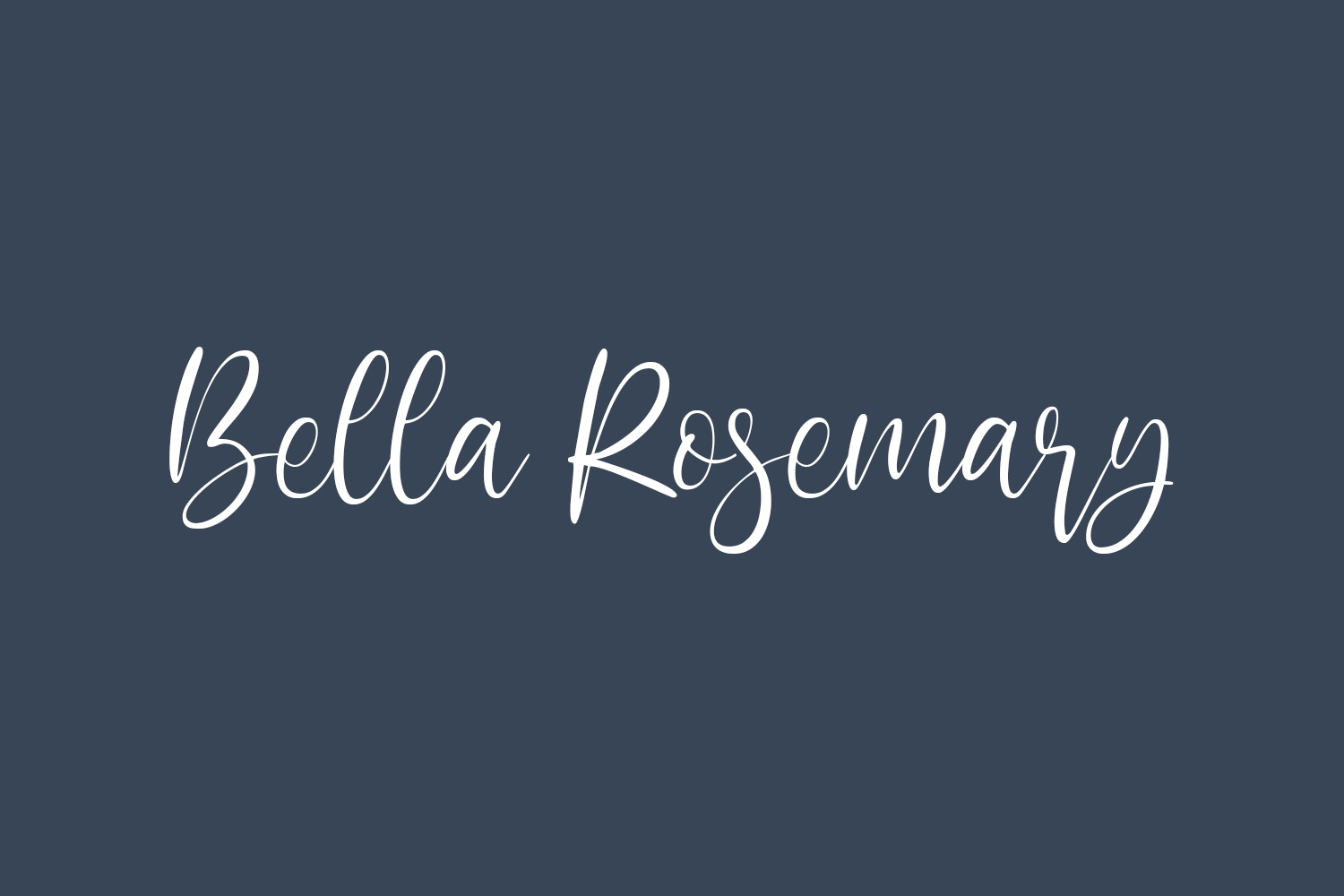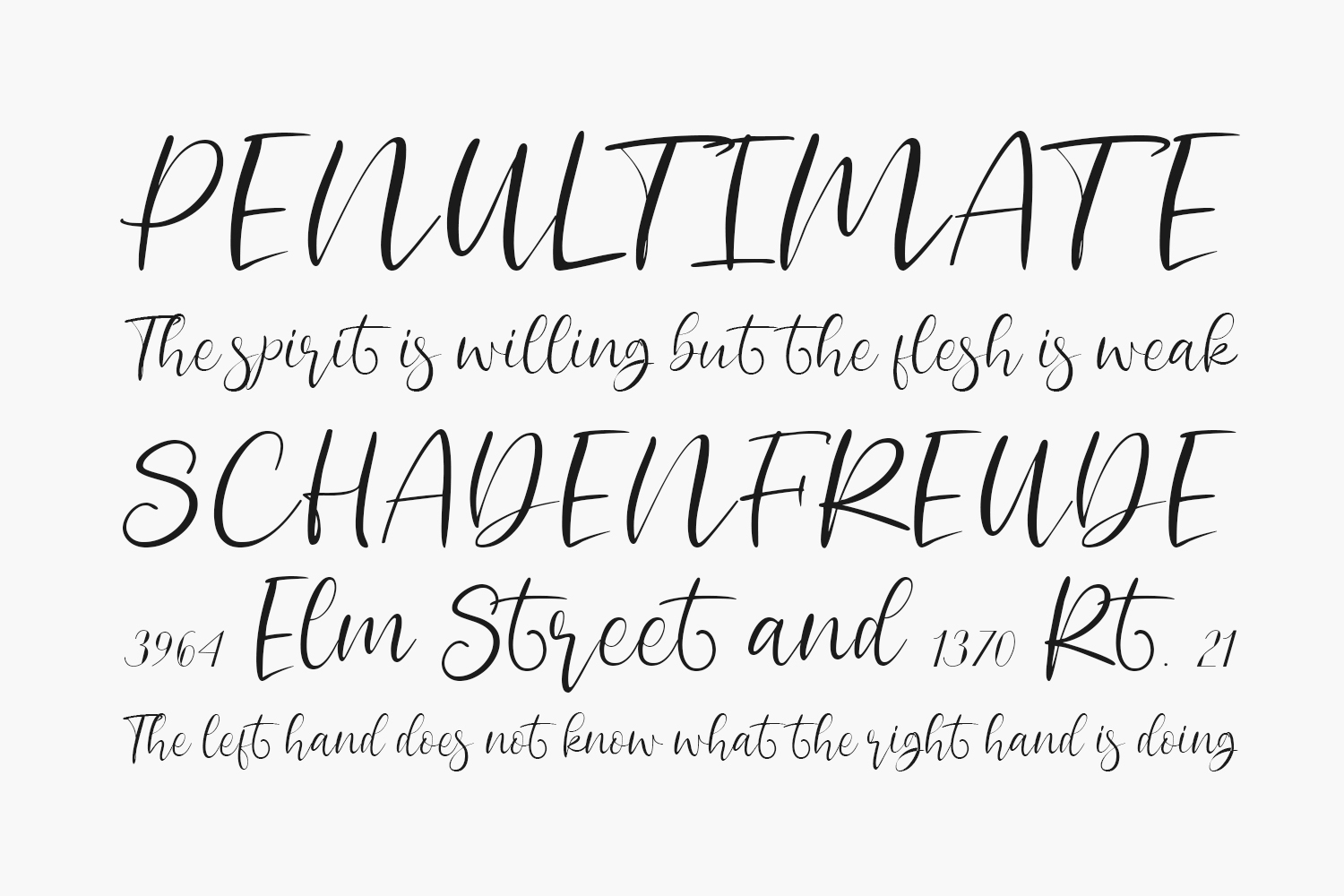
Bella Rosemary Free Font is a lovely and timeless handwritten font. It is the best choice for creating eye catching logos, branding, and quotes. Every letter has a unique and beautiful touch, which will make your design come alive. Bella Rosemary Free Font was designed by Epiclinez and is free for personal use only. Please purchase the full version for commercial use.